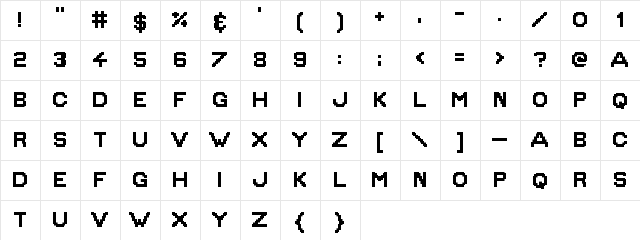
Golden Age Regular
Design Context for Golden Age Typeface
Golden Age is a composed and adaptable typeface that performs quietly and consistently across a wide range of design contexts.